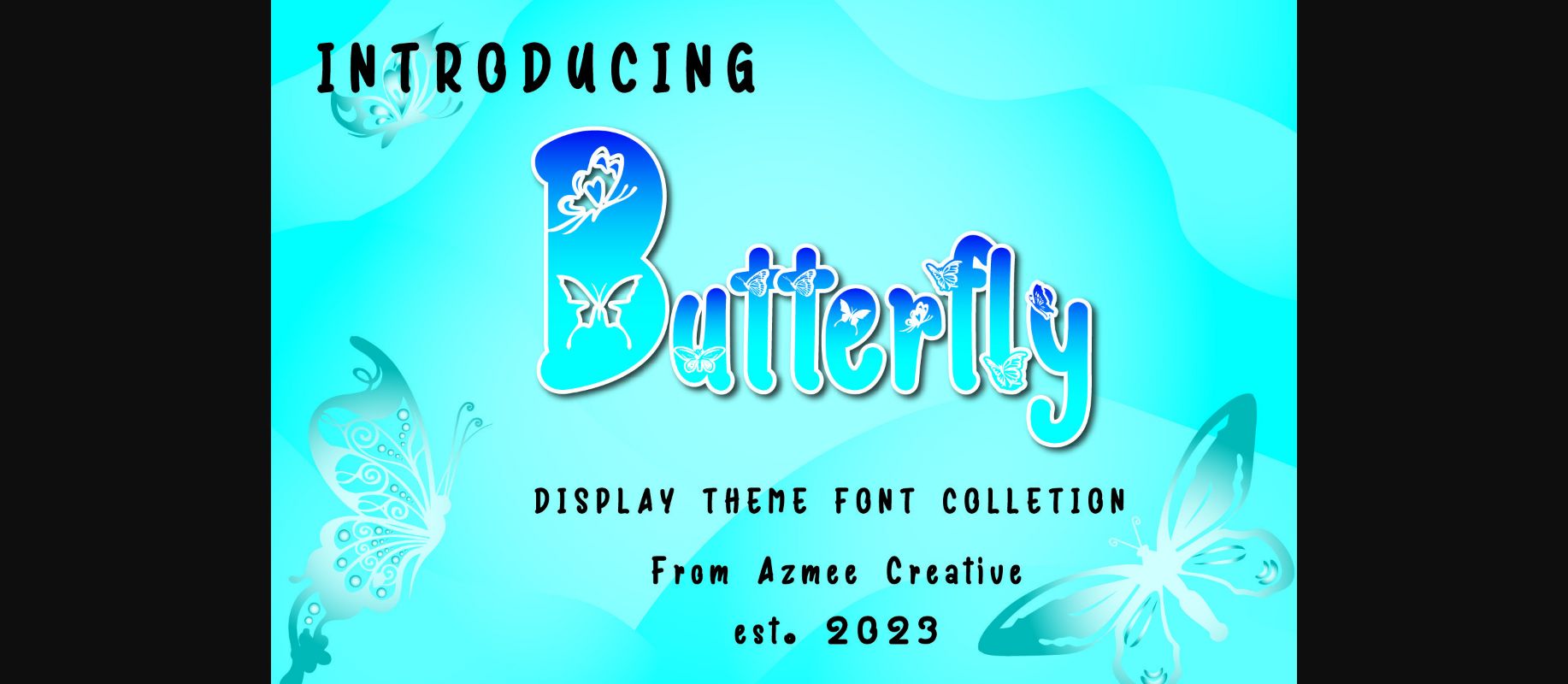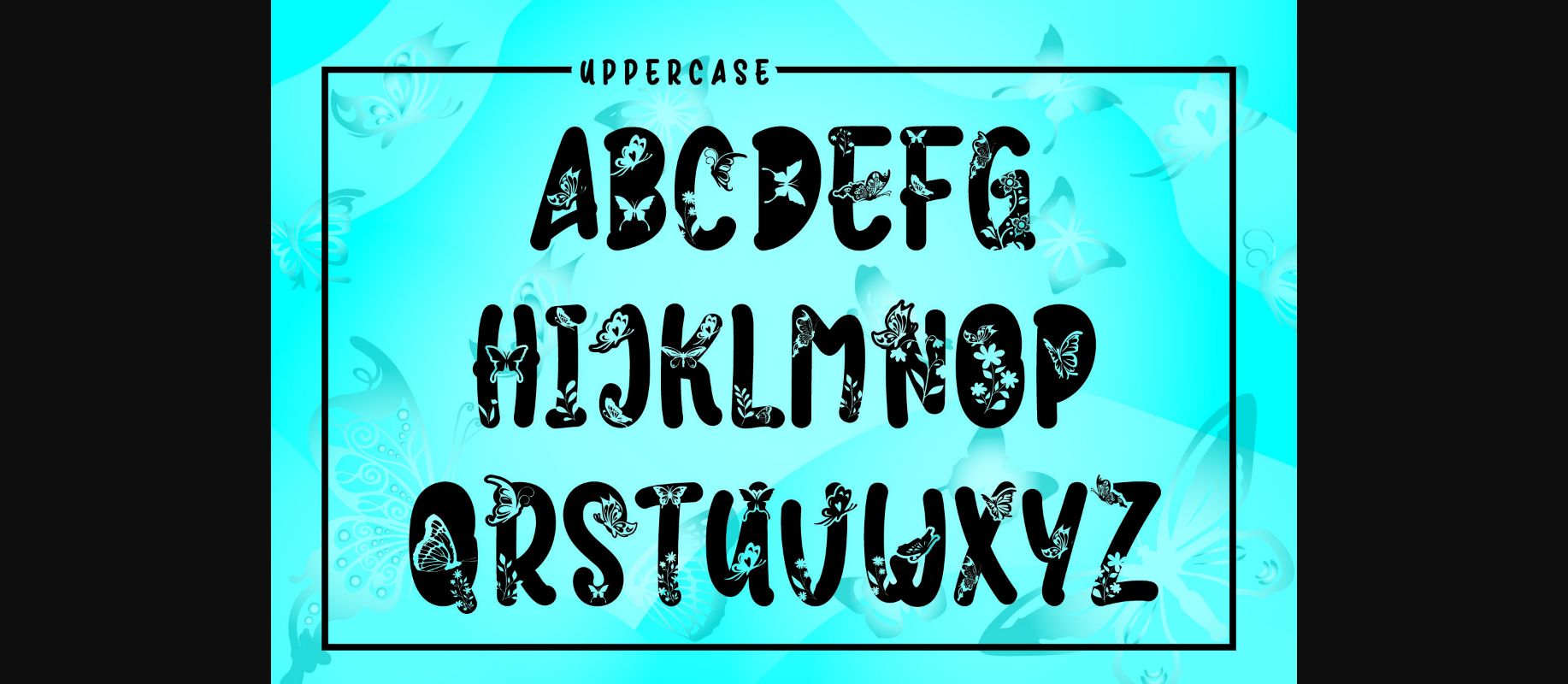
Butterfly is a charming Butterfly-themed decorative font. Get inspired by the look of this fun and creative typeface and use it in your upcoming project! It looks nice on posters, flyers, t-shirts, quotes, and many more.